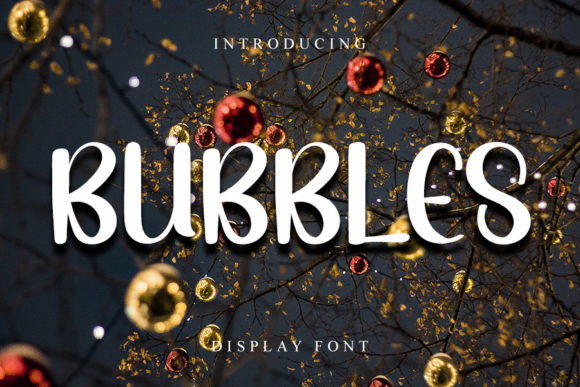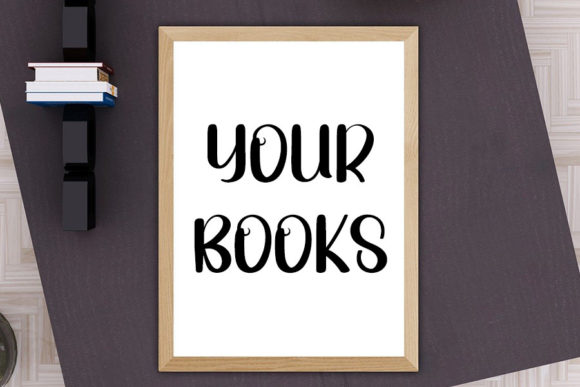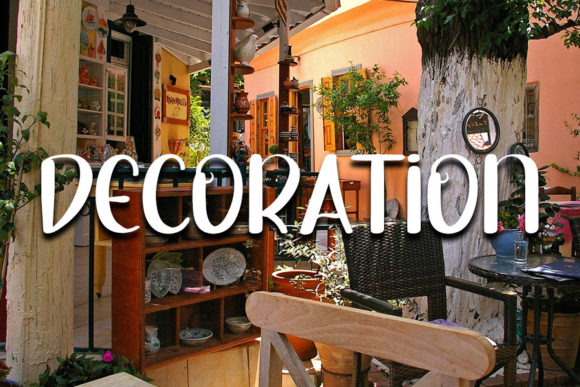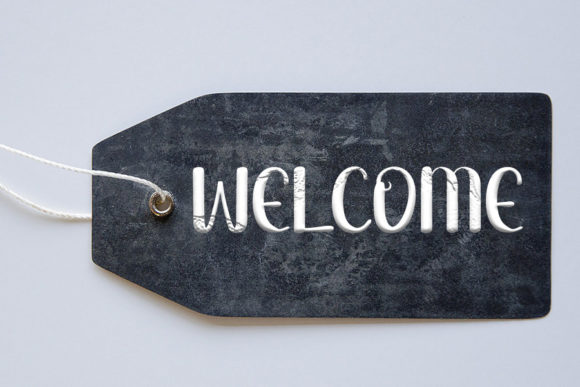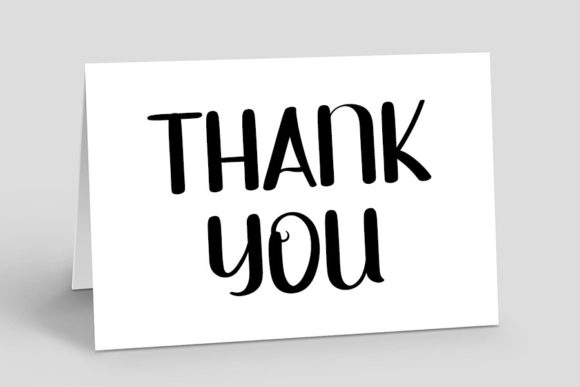
About Bubbles Font
Bubbles is a charming and stylish handwritten font that captures the essence of classic calligraphy while exuding a modern and contemporary feel. Its impeccable form and balanced design make it a versatile choice for a wide array of creative projects, infusing them with an air of elegance and sophistication.
When used in branding and logo design, Bubbles adds a unique touch that sets your brand apart. The varied and balanced letterforms convey a sense of creativity and professionalism, making your brand identity memorable and visually appealing.
For print materials like invitations and event announcements, Bubbles’ graceful strokes and timeless style create an inviting and enchanting atmosphere. Whether it’s a wedding, party, or special occasion, this font adds a touch of whimsy and charm that resonates with your audience.
In the digital realm, Bubbles shines in social media graphics, website banners, and blog post headers. Its contemporary yet classic design captures attention and engages viewers, making it perfect for conveying your message with flair.
Editorial projects benefit from Bubbles’ versatile and elegant form. Whether you’re designing magazines, brochures, or books, this font brings a sense of dynamism and beauty to your layouts, enhancing the overall reading experience.
Bubbles’ stylish aesthetic also lends itself to packaging and product design. From beauty products to artisanal goods, the font’s unique charm can elevate the visual appeal of your packaging, creating a sense of luxury and refinement.
For DIY and crafting projects, Bubbles adds a touch of creativity. Use it to design personalized labels, greeting cards, and handmade gifts that showcase your artistic flair and attention to detail.
In summary, Bubbles is a stylish handwritten font that seamlessly blends classic calligraphy with a contemporary twist. Its impeccable form, balanced composition, and modern appeal make it a valuable tool for enhancing the beauty and visual impact of your branding, design, and creative ventures.